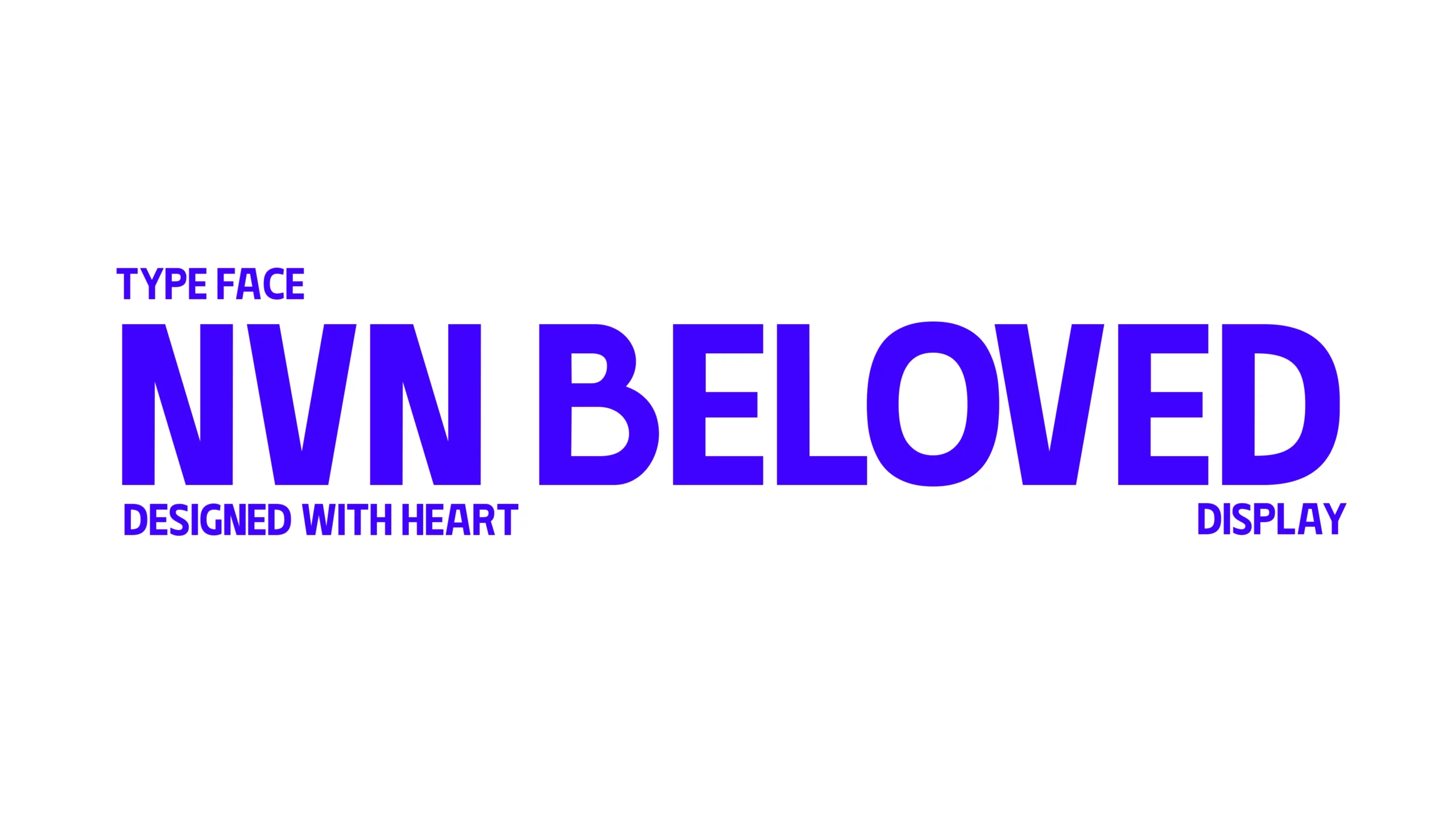
Tên font: Font Tiếng Việt NVN BELOVED
NVN BELOVED is a modern display sans-serif font designed with clean, squared-off strokes, medium weight, and well-balanced spacing. This font conveys a strong and clear yet friendly feel, making it ideal for headlines, posters, and designs that require a direct and impactful message. It fully supports Vietnamese characters, including diacritics and special symbols, maintaining clarity and readability at any size.